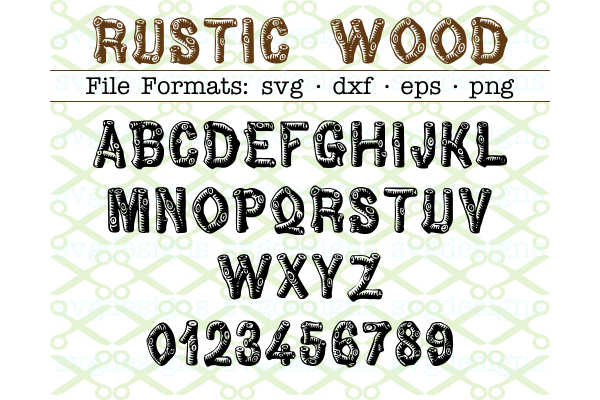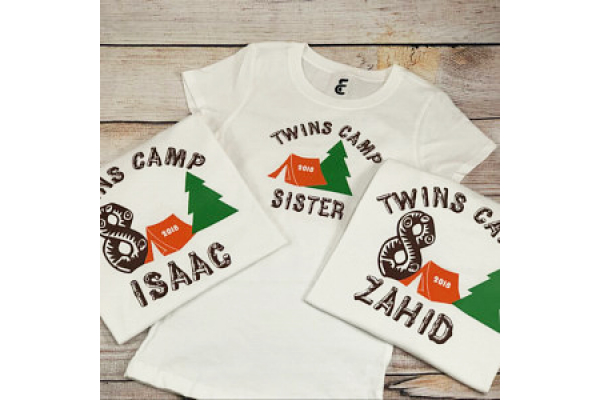
RUSTIC WOOD FONT SVG FILES, In File Formats SVG, DXF, EPS & PNG. 26 Upper case letters A-Z, numbers 0-9 as shown in ad picture. See second picture which shows t-shirts made by one of our buyers! The wood font looks great on her t-shirts! Great for camping or outdoors themes!